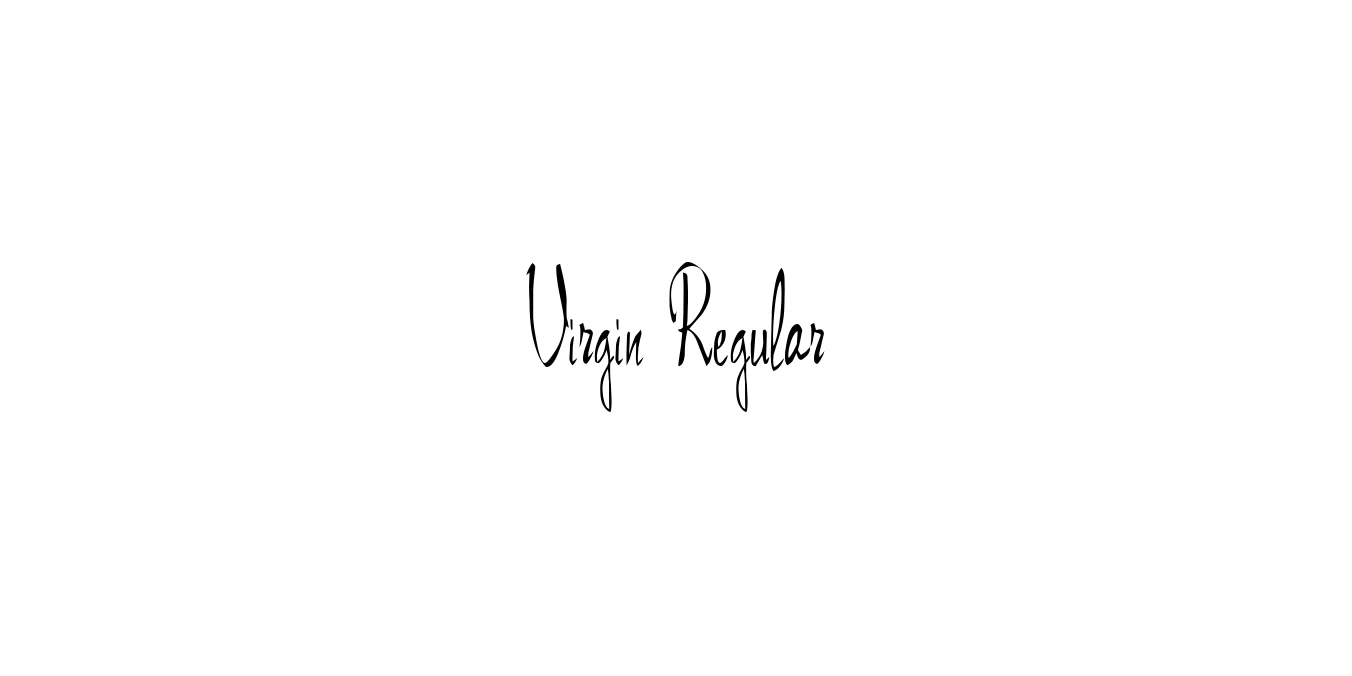
Virgin Regular
Virgin Regular is a sophisticated and elegant script typeface designed by the renowned typographer Mans Greback. Released as part of a larger family of calligraphic styles, this font captures the essence of fluid, hand-drawn lettering with a modern, polished finish. Its graceful strokes and balanced proportions make it an excellent choice for designers looking to convey luxury and timeless beauty in their creative projects.
The typeface is characterized by its extensive set of ligatures and decorative swashes, which allow for a highly customized typographic experience. Virgin Regular is particularly effective in high-end branding, editorial headers, and formal stationery. It bridges the gap between traditional penmanship and digital precision, offering a versatile tool for both print and digital media where a touch of personal flair is required.
Virgin Regular Best Uses
Perfect for adding a touch of class to formal invites and save-the-date cards.
Ideal for luxury fashion labels, cosmetic brands, and boutique logos.
Well-suited for magazine headers, pull quotes, and sophisticated layout elements.
Enhances the premium feel of high-end product containers and gift boxes.